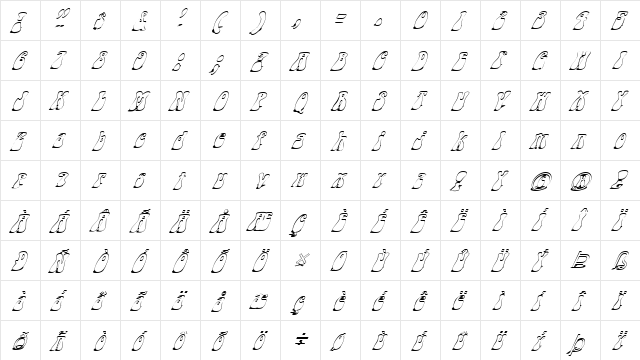
FZ JAZZY 14 SHADOW ITALIC Normal
Design Context for FZ JAZZY 14 SHADOW ITALIC Typeface
FZ JAZZY 14 SHADOW ITALIC is built around its visual character rather than neutral utility — its distinctive forms are designed to make an impression at display sizes. The dynamic lean of this cut emphasises speed and emphasis in any layout.
Font Pairing: Pair with a clean neutral sans-serif for body copy to let FZ JAZZY 14 SHADOW ITALIC's character lead without overwhelming the composition.
Pro Tip: Use FZ JAZZY 14 SHADOW ITALIC exclusively at display sizes — it was designed to be seen, not read at length. Let a neutral companion handle body copy.